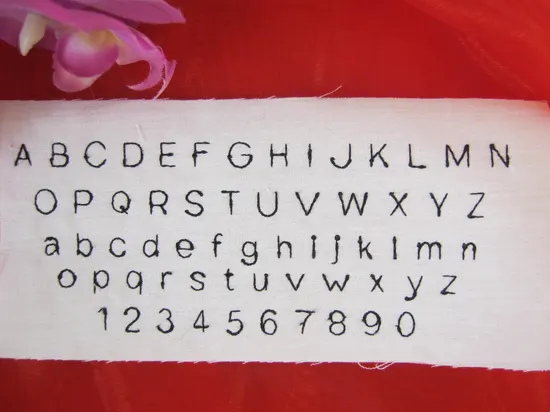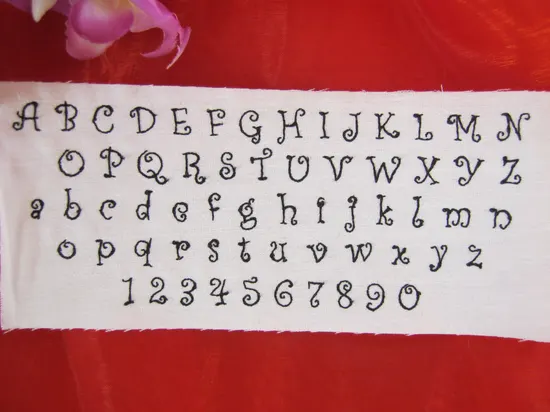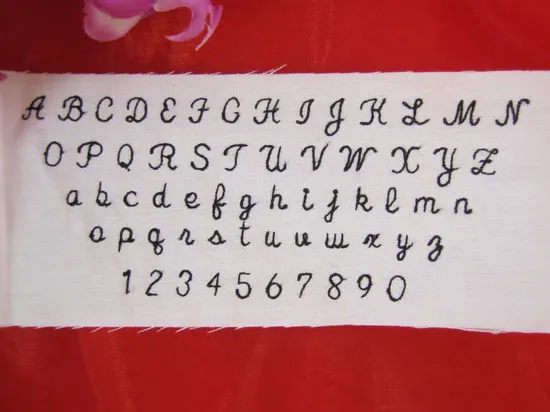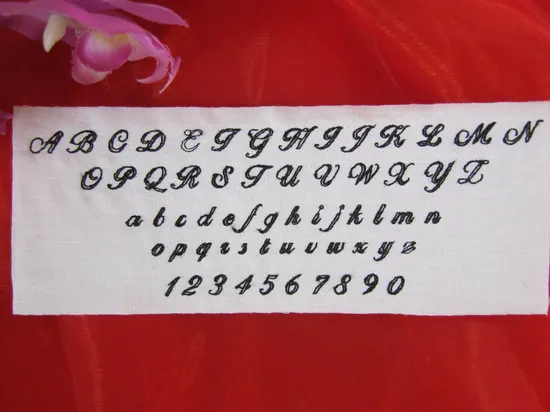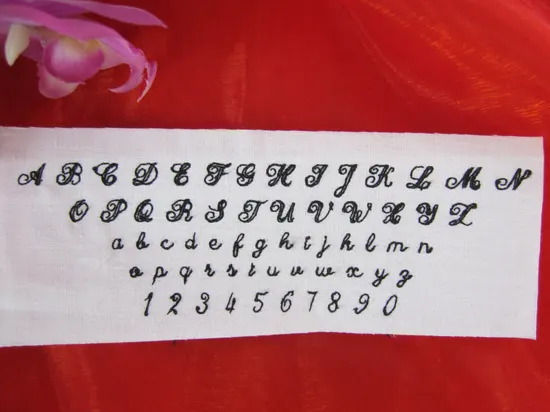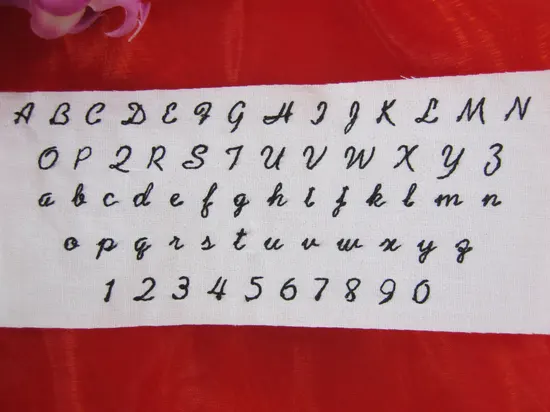
This is a super collection of 6 light weight running stitch fonts. Thet are perfect for quilt lable's, small projects and tags.
BESV518 - Mini Font 1
BESV519 - Mini Font 2
BESV520 - Mini Font 3
BESV521 - Mini Font 4
BESV522 - Mini Font 5
BESV523 - Mini Font 6